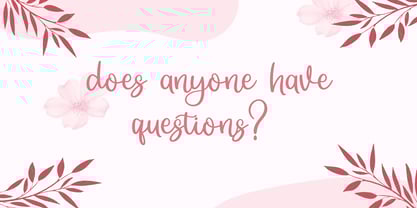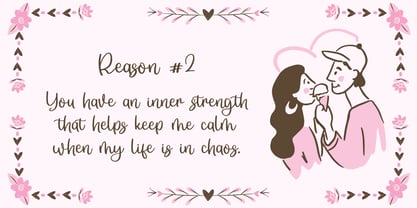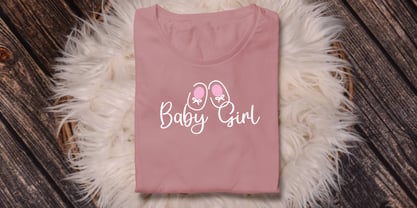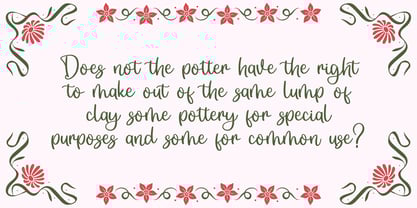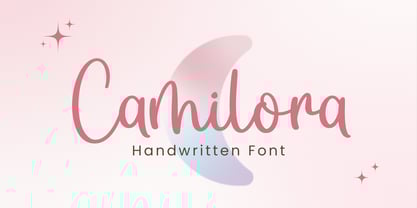
Camilora
by Beary
Camilora Font Family was designed by Dian Haniffan Hadi and published by Beary. Camilora contains 1 styles.
What is Camilora?
Camilora is a beautifully crafted typeface designed to elevate your creative projects. With its elegant curves and versatile style, Camilora is the perfect choice for branding, invitations, social media graphics, and more. This font is designed to enhance your designs and bring a touch of sophistication to every word.
Is Camilora suitable for all designs?
While Camilora is incredibly versatile, it truly shines in elegant and modern designs. Its unique characteristics make it ideal for projects that require a refined and stylish touch. Using Camilora in your work will not only add a professional finish but also captivate your audience and leave a lasting impression.